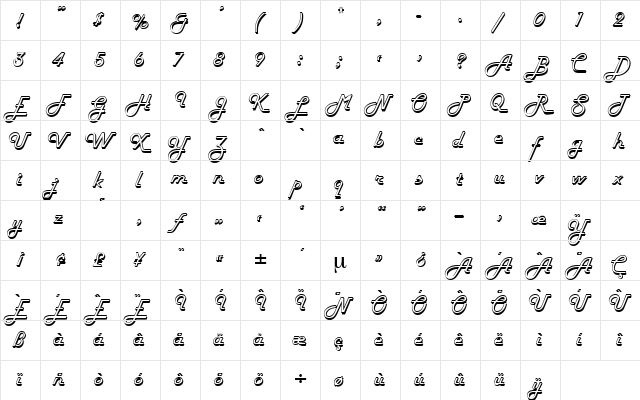
Bermuda Regular
Design Context for Bermuda Typeface
Bermuda is a composed and adaptable typeface that performs quietly and consistently across a wide range of design contexts.